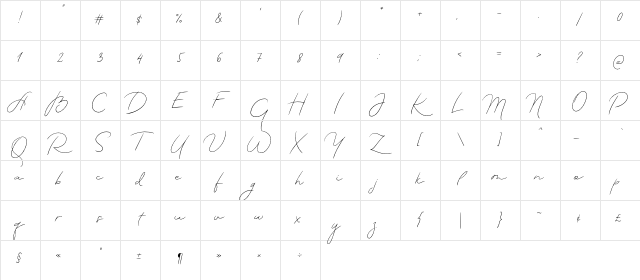
MADE TheArtist Script Regular
Foundry: MadeType
Designer: MadeType
Design Context for MADE TheArtist Script
MADE TheArtist Script flows with the natural rhythm of handwritten lettering, making it ideal for designs that call for warmth and personal expression.
Font Pairing: Combine MADE TheArtist Script with a simple geometric sans for maximum contrast - the tension between flowing curves and clean structure is a classic typographic pairing.
Pro Tip: Use MADE TheArtist Script for short runs of text - names, titles, or taglines. Extended body copy in script faces tires the eye quickly.